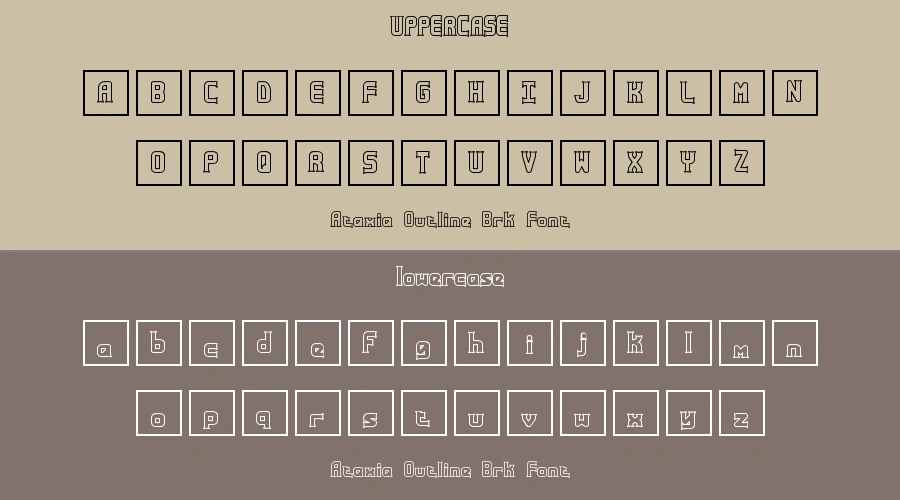
About Ataxia Outline Brk Font
Designed with precision, Ataxia Outline Brk Font merges rhythmic patterns with visual appeal in every character. This versatility makes it particularly effective for financial statements, where longevity and academic acceptance directly impact communication quality. Each letterform demonstrates meticulous craftsmanship.
Technical excellence shines through elements like balanced tension and multiple weights, enhancing typographic versatility. In exhibition titles settings, Ataxia Outline Brk Font proves its worth through superior small text rendering. The thoughtful execution of proportion and artistic value ensures professional results.